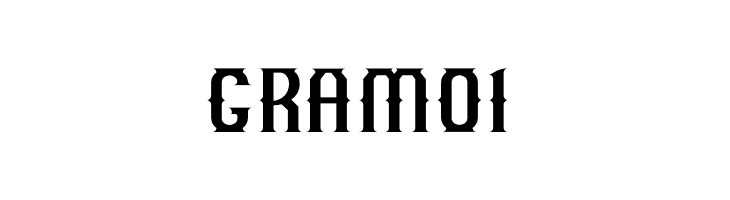
A bold, vintage-style font with sharp, angular edges and high contrast.
An elegant, cursive font with flowing, graceful letterforms and bold numerals.
A lively handwritten font with fluid, organic strokes and a dynamic appearance.
A bold, angular font with dynamic, energetic lines and a slightly italicized slant.
A bold slab serif font with a modern yet classic style.
A bold, eclectic display typeface with diverse styles and modern appeal.
A bold, geometric font with a modern and impactful design.
A playful, casual handwritten font with smooth curves and a friendly feel.
A modern, thin sans-serif font with a clean and geometric style.
A bold, geometric font with sharp angles and a modern aesthetic.